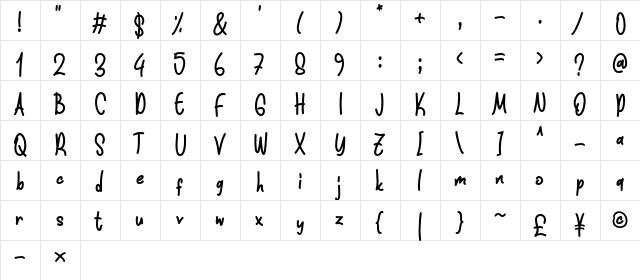
Funnis Regular
Design Context for Funnis Typeface
Funnis has an approachable, lighthearted character — its loose, expressive forms are well-suited to children's content, casual branding, and fun-first design.
Font Pairing: Pairs well with a rounded or humanist sans for body copy, maintaining the friendly tone without relying on Funnis to carry extended reading.
Pro Tip: Avoid using Funnis for long passages of text — it works best for headlines, labels, and short calls to action.